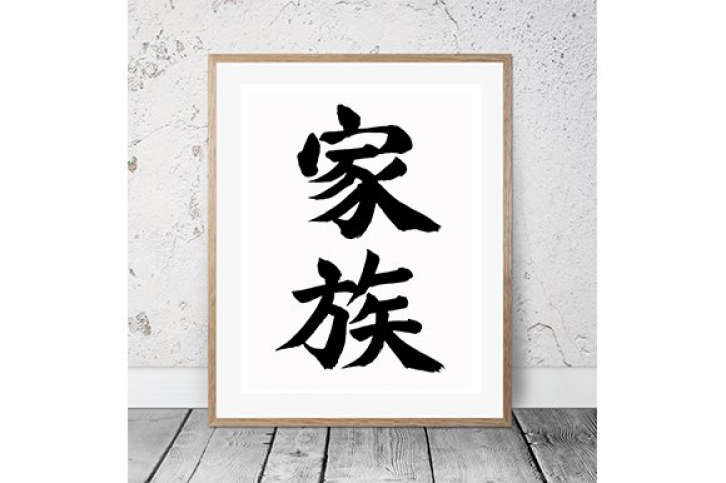
Japanese Calligraphy "Kazoku" FONT Download
Japanese Calligraphy "Kazoku: Family"
Handwritten, digitized calligraphy. -The frame in the picture is only a mock-up.-